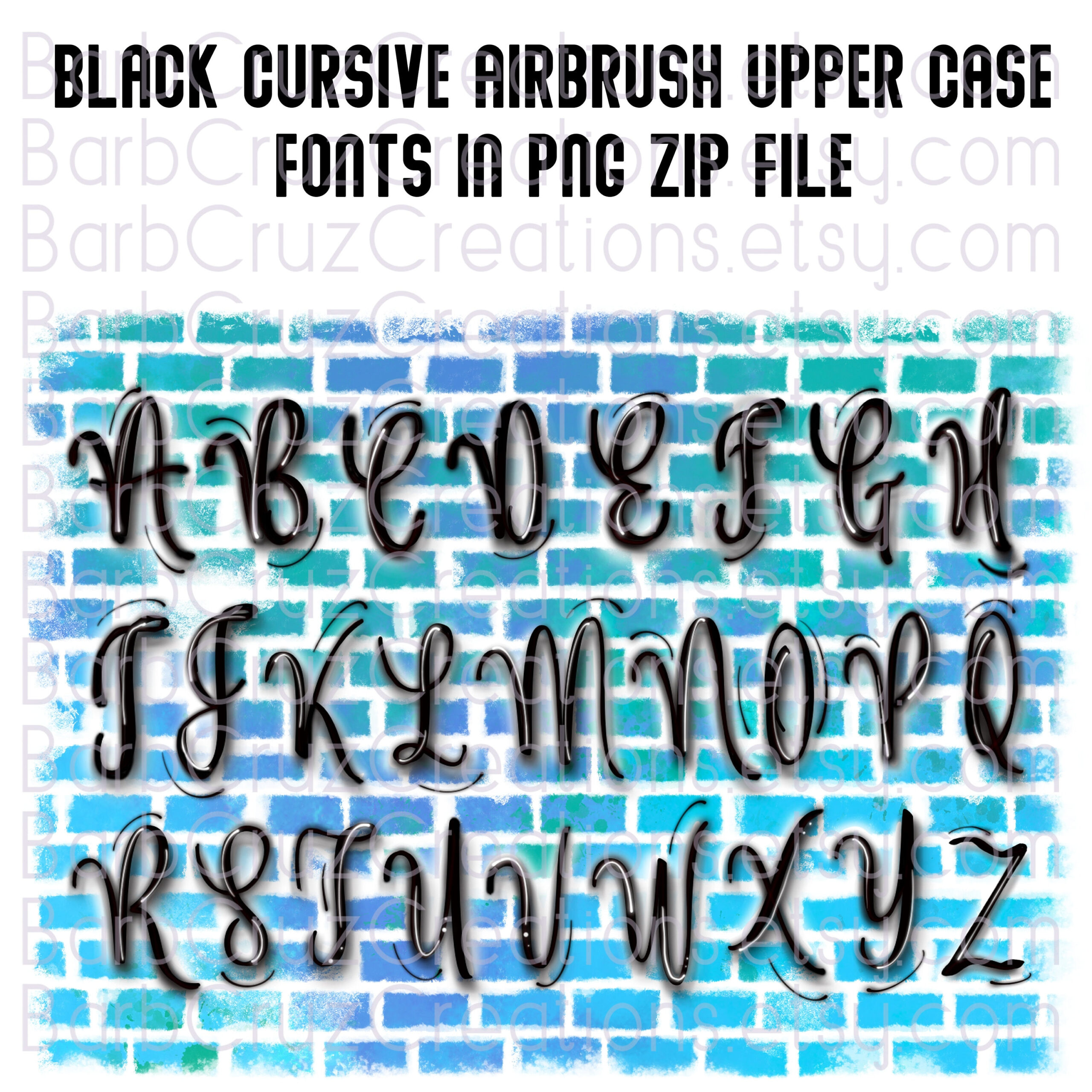
Enhancing Typography With Airbrush Fonts
airbrush font: Adding Style to Your Designs
Fonts play a crucial role in design as they have the power to captivate and engage viewers. One font style that has gained popularity in recent years is the airbrush font. This unique style mimics the look of airbrushed letters, adding a touch of retro appeal to any design.
Airbrush fonts are characterized by their smooth and gradient-filled appearance, mimicking the effect of airbrushing paint onto a surface. They often feature a sleek, glossy finish that gives them a polished and professional look. These fonts are commonly used in various design projects such as posters, advertisements, logos, and even digital artwork.
One of the main reasons why airbrush fonts are so appealing is that they bring a sense of nostalgia. They evoke memories of the 80s and 90s when airbrush art was at its peak. The airbrush font adds a vintage touch to any design, making it perfect for retro-themed projects or those that aim to create a sense of nostalgia.
Another advantage of airbrush fonts is their versatility. They can be used in a variety of design styles, ranging from bold and vibrant to subtle and understated. This versatility allows designers to experiment and create unique combinations that perfectly convey their intended message.
When using airbrush fonts, it’s essential to consider the overall design and ensure that the font aligns with the intended message. The airbrush font may not be suitable for all design projects, especially those that require a more formal or serious tone. It’s crucial to find the right balance between the font style and the overall design concept.
Designers can also create their own airbrush fonts by using graphic design software such as Adobe Illustrator or Photoshop. With these tools, they can customize the appearance of the font, adjusting the gradients, shadows, and highlights to achieve the desired effect.
In conclusion, airbrush fonts are a fantastic addition to any design project. Their unique and retro appearance adds a sense of nostalgia and style, making them an excellent choice for various design styles. Whether you’re working on a poster, logo, or digital artwork, consider incorporating an airbrush font to enhance the visual impact of your designs.